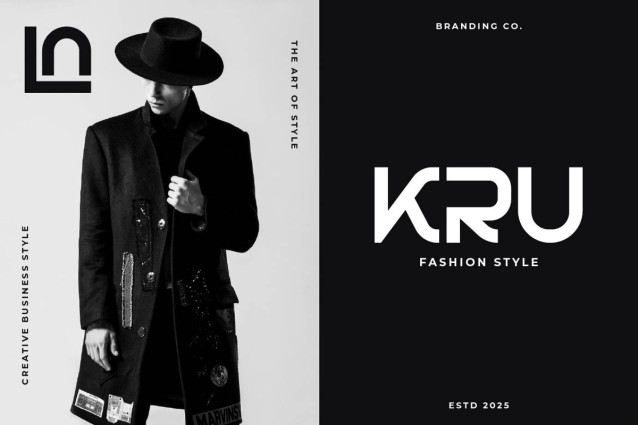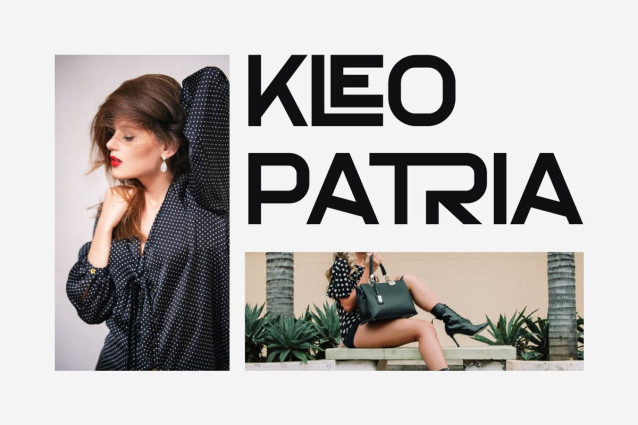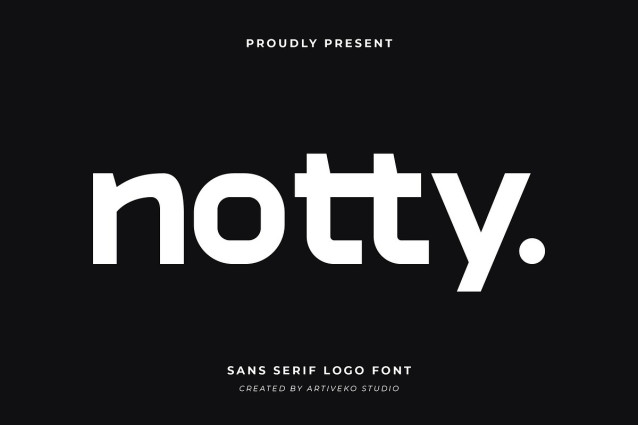
Notty Font
Notty Font is a sharp and stylish sans serif font crafted specifically for modern branding and logo creation. With its clean lines, strong geometry, and subtle quirks, Notty offers a contemporary and confident aesthetic that’s perfect for tech startups, fashion labels, creative agencies, and lifestyle brands.
This fonts are great for product logo,wedding card logo, clothing brand logo, Vintage design and much more.